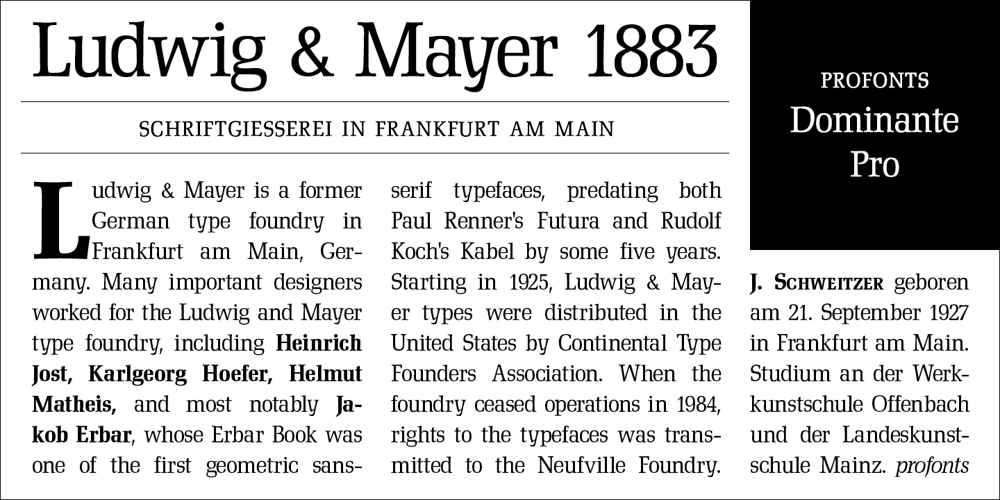
Dominante
Dominante font
Dominante Font Family was designed by Ralph M. Unger and published by profonts. Dominante contains 3 styles and family package options. Dominante Pro was originally designed by Johannes Schweitzer in 1959 for Ludwig & Mayer. Ralph M. Unger digitally remastered this beautiful slab serif typeface for the profonts library. Unger?s revival design is based on artwork from old font catalogues. Dominante Pro comes in three weights: regular, italic, and bold. All fonts include corresponding Expert Sets with Small Caps.